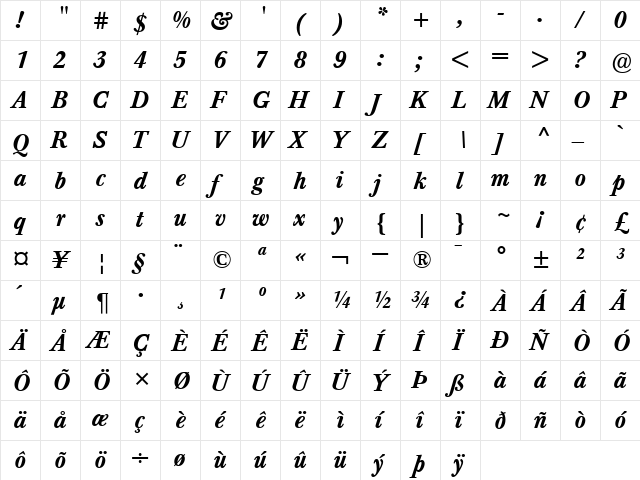
BertholdBaskerville-Medium MediumItalic Font Preview
BertholdBaskerville-Medium MediumItalic
BertholdBaskerville-Medium MediumItalic Font Details
Design Context for BertholdBaskerville-Medium Typeface
BertholdBaskerville-Medium is a composed and adaptable typeface that performs quietly and consistently across a wide range of design contexts. Its italic angle brings a sense of urgency and motion to the letterforms.
Pro Tip: Try BertholdBaskerville-Medium for annotation and caption copy alongside an upright companion — the contrast in angle creates a dynamic but ordered typographic system.